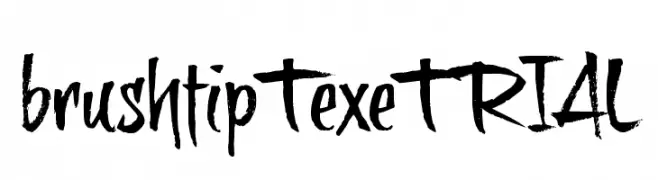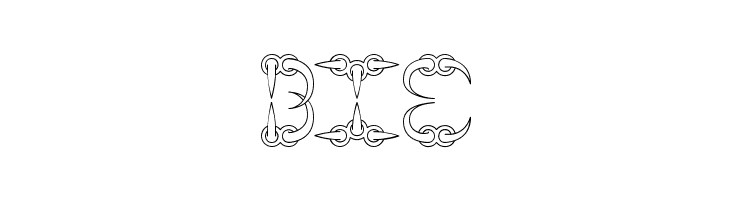
A futuristic, geometric font with angular and sleek letterforms.
An ornate, decorative font with a festive, gothic style.
A bold, geometric font with outlined characters and a modern, futuristic style.
A bold, geometric font with a modern, futuristic style and uniform stroke widths.
A bold, geometric font with a modern, industrial aesthetic.
A bold, playful font with rounded shapes and decorative curls.
A geometric, angular font with a futuristic and technical style.
A geometric, angular font with a modern and bold appearance.
A geometric, futuristic font with blocky, angular letterforms and consistent stroke widths.
A classic serif font with medium weight and pronounced serifs, offering a blend of tradition and modernity.
A bold, impactful typeface with strong strokes and tight spacing.
A bold, modern font with a slight italic slant and geometric design.
A bold, brush-style font with dynamic, slanted characters.
A bold, geometric typeface with strong, uniform strokes.
A dynamic and elegant script font with flowing, cursive letterforms.
A bold, italicized font with a dynamic and energetic style.
A dynamic script font with fluid, cursive letterforms and a handwritten feel.
A bold, rounded font with smooth curves and a playful style.
A bold, modern font with thick, uniform strokes for a strong visual impact.
A modern, slightly italicized font with a sleek and dynamic design.
A bold serif font with strong strokes and classic serifs.
A bold, classic serif font with strong strokes and pronounced serifs.
A bold, decorative font with a 3D effect and geometric forms.
A bold, modern serif typeface with strong, thick strokes and pronounced serifs.
An elegant script font with flowing curves and delicate strokes, perfect for formal and luxurious designs.
A bold, italic font with strong, dynamic strokes and a modern, assertive style.
A classic serif font with modern elegance and versatility.